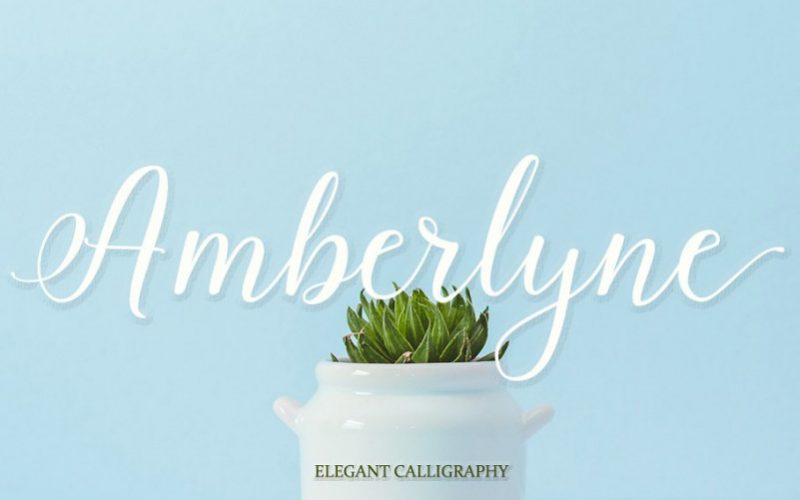
Amberlyn Script Font
Amberlyne Script font style comes with an amazing character. Ideal for a logo, a name tag, handwritten quotations, product packaging, goods, social media and greeting cards. It contains a complete set of lower and upper case letters, assorted punctuation, numbers, and support multi language.